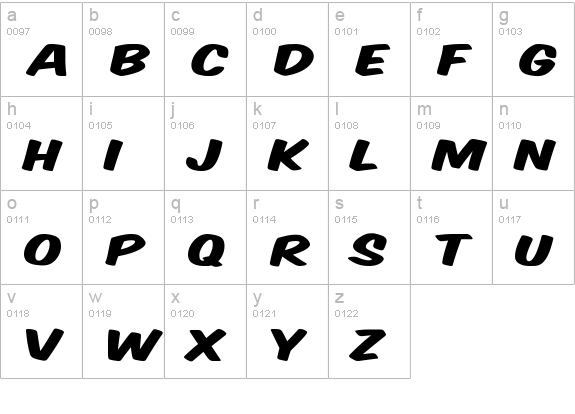
Komika Title - Wide is a distinctive, extended-width variant in the Komika typeface family \xE2\x80\x94 well suited to design and typography projects.
Komika Title - Wide font is a bold and eye-catching display typeface that exudes a modern and contemporary feel. With its wide letterforms and distinctive styling, this font is perfect for making a statement in headlines, posters, and branding projects. The unique character shapes and strong presence of Komika Title - Wide font make it a versatile choice for both digital and print designs. Best of all, Komika Title - Wide font is available for free download at FontsMarket.com. This means you can easily access and use this striking typeface in your projects without any cost. Don't miss out on the opportunity to enhance your designs with the impactful and dynamic Komika Title - Wide font today!